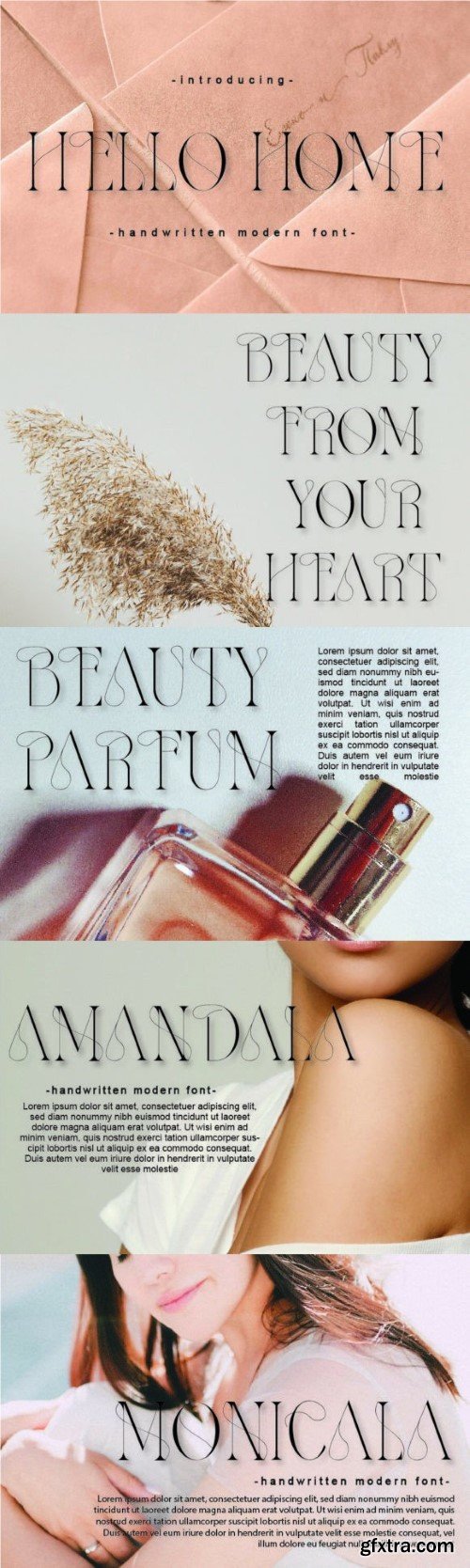
你好家字体
Hello Home is a trendy and cool serif font that looks modern and futuristic, yet it still maintains a level of versatility. Add this font to your creative ideas, and see how your project comes to life.